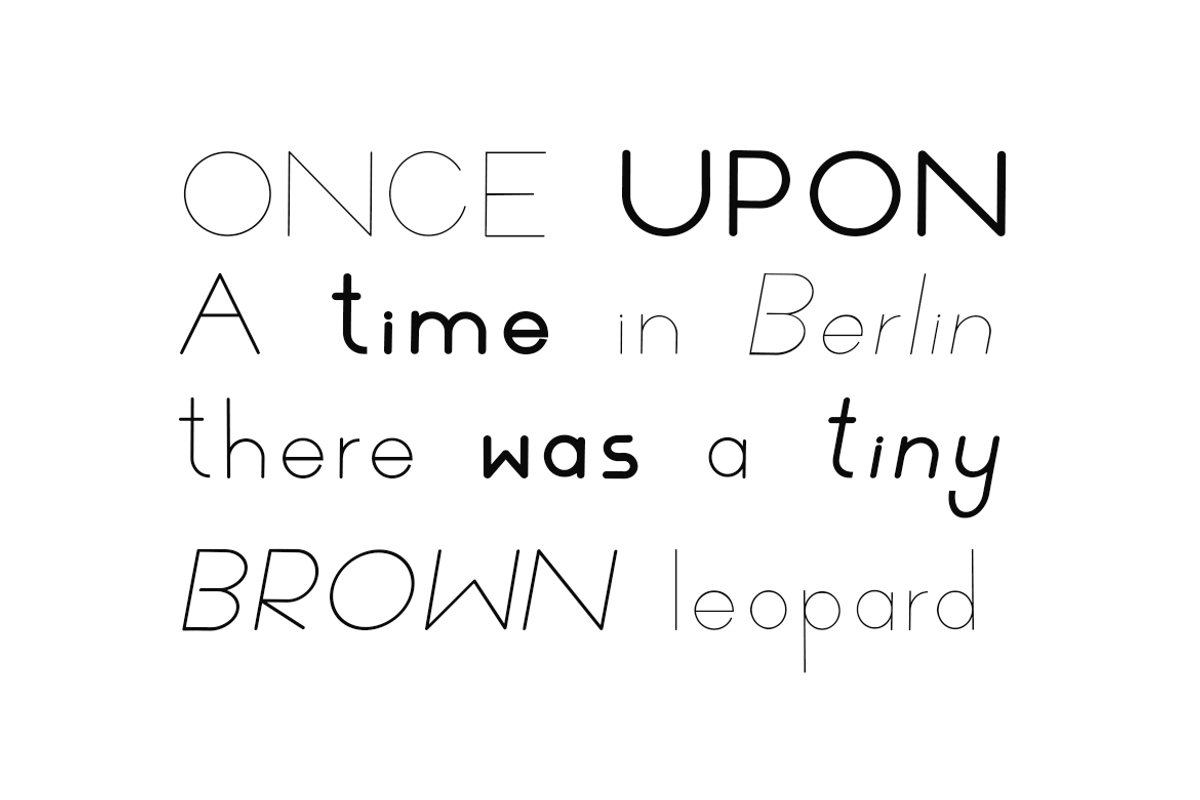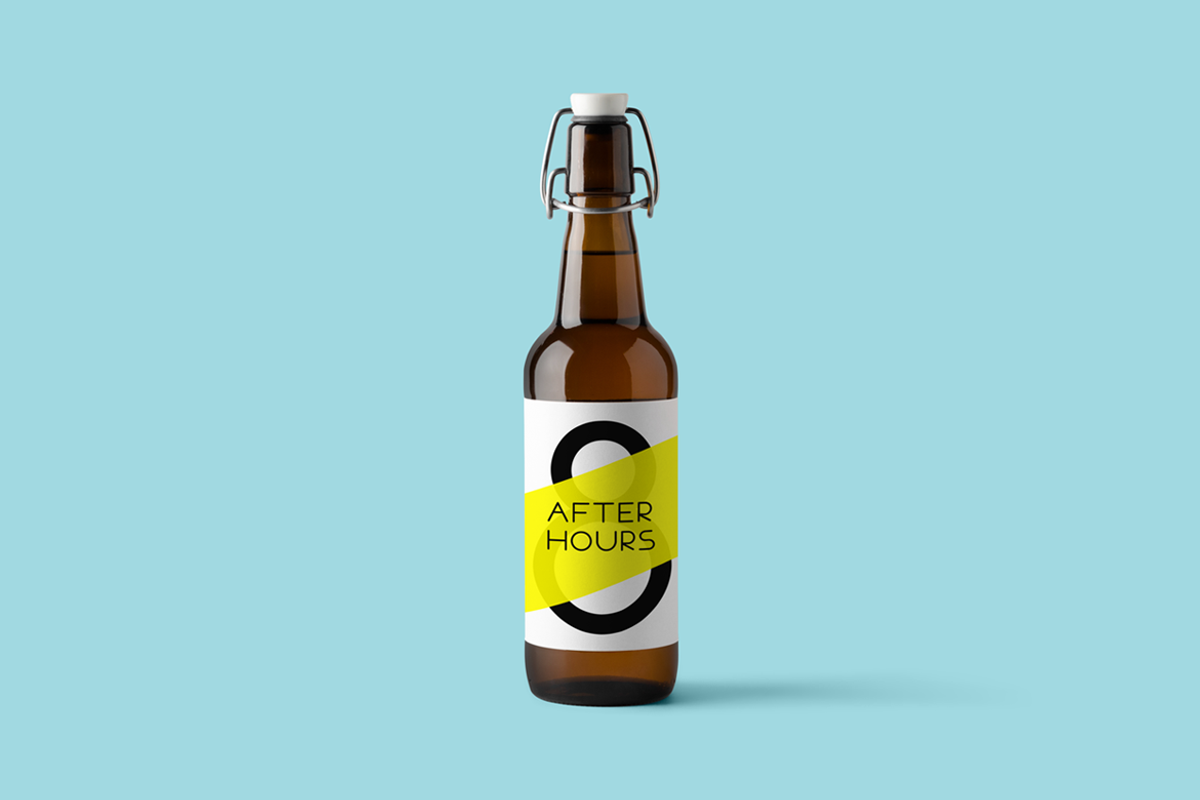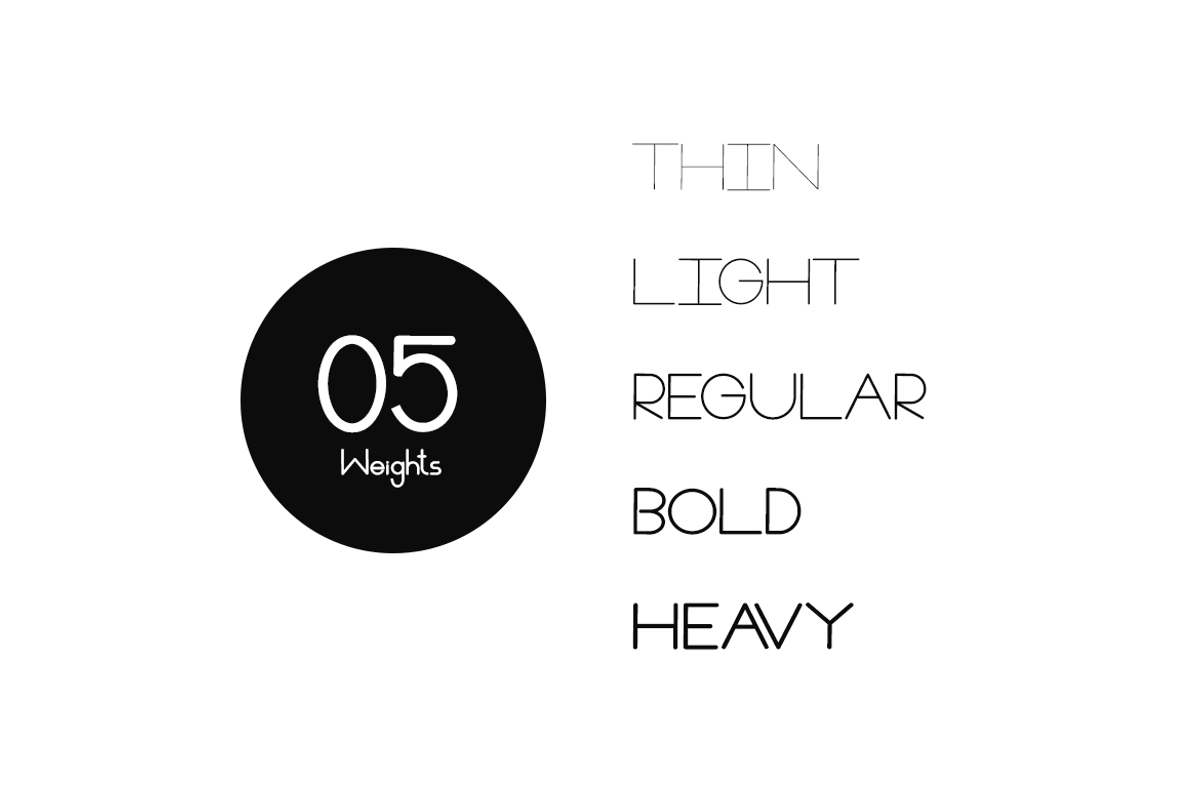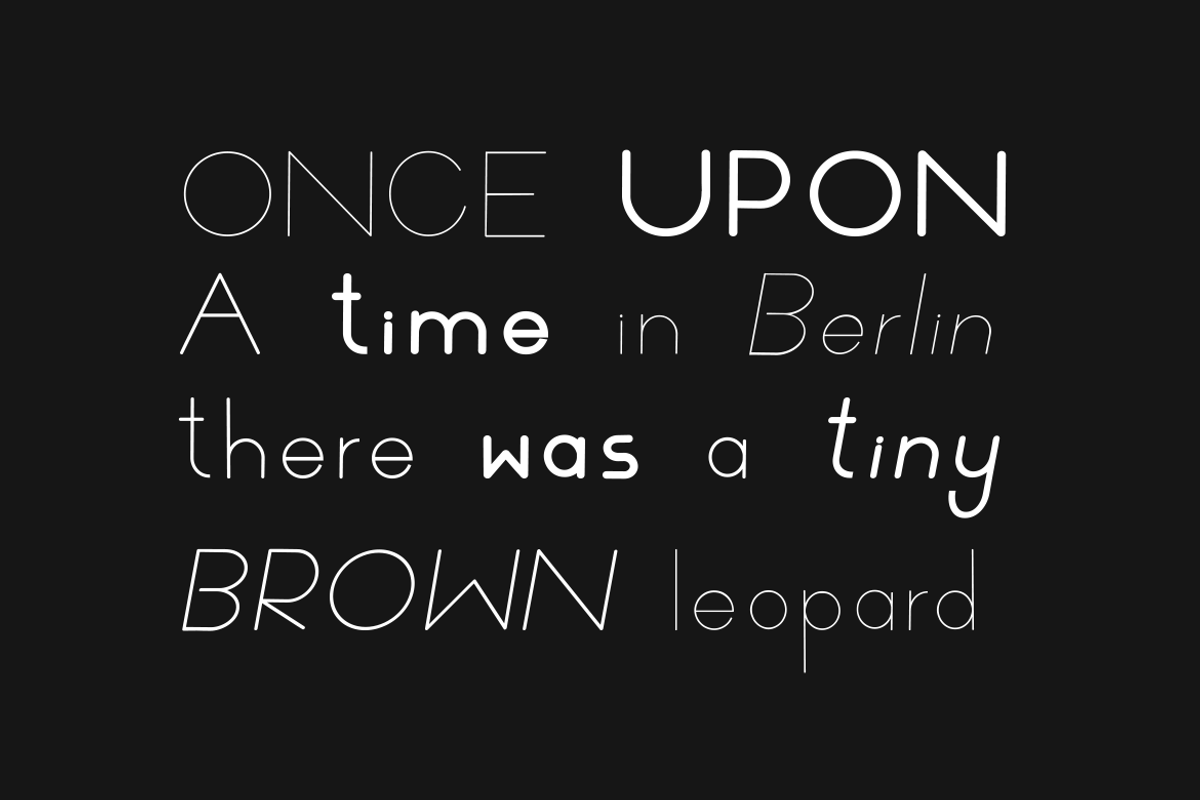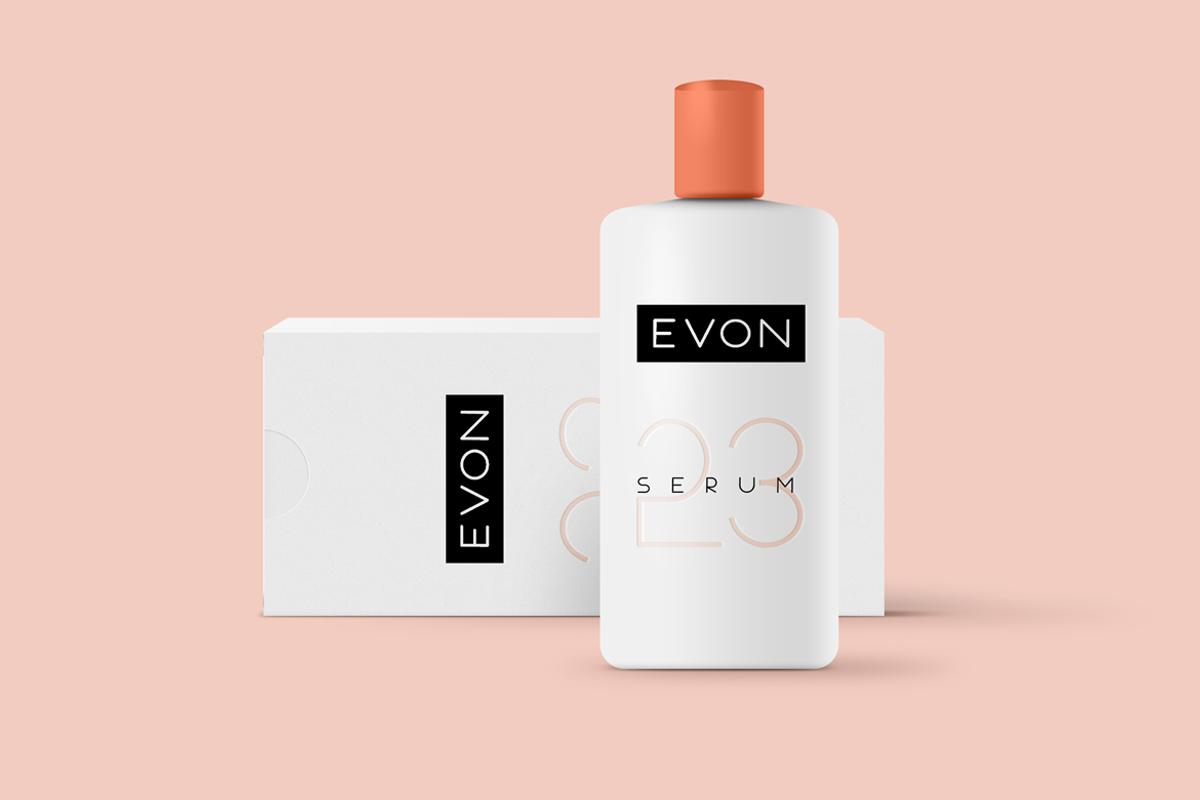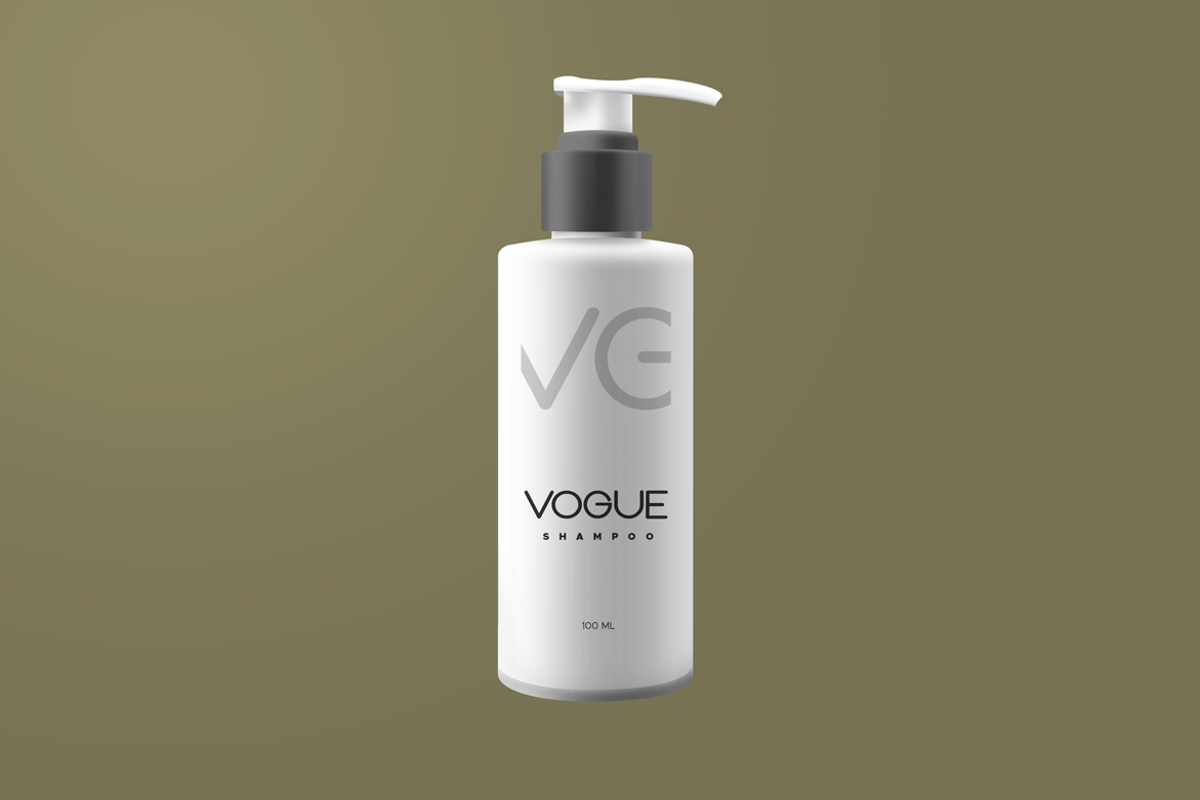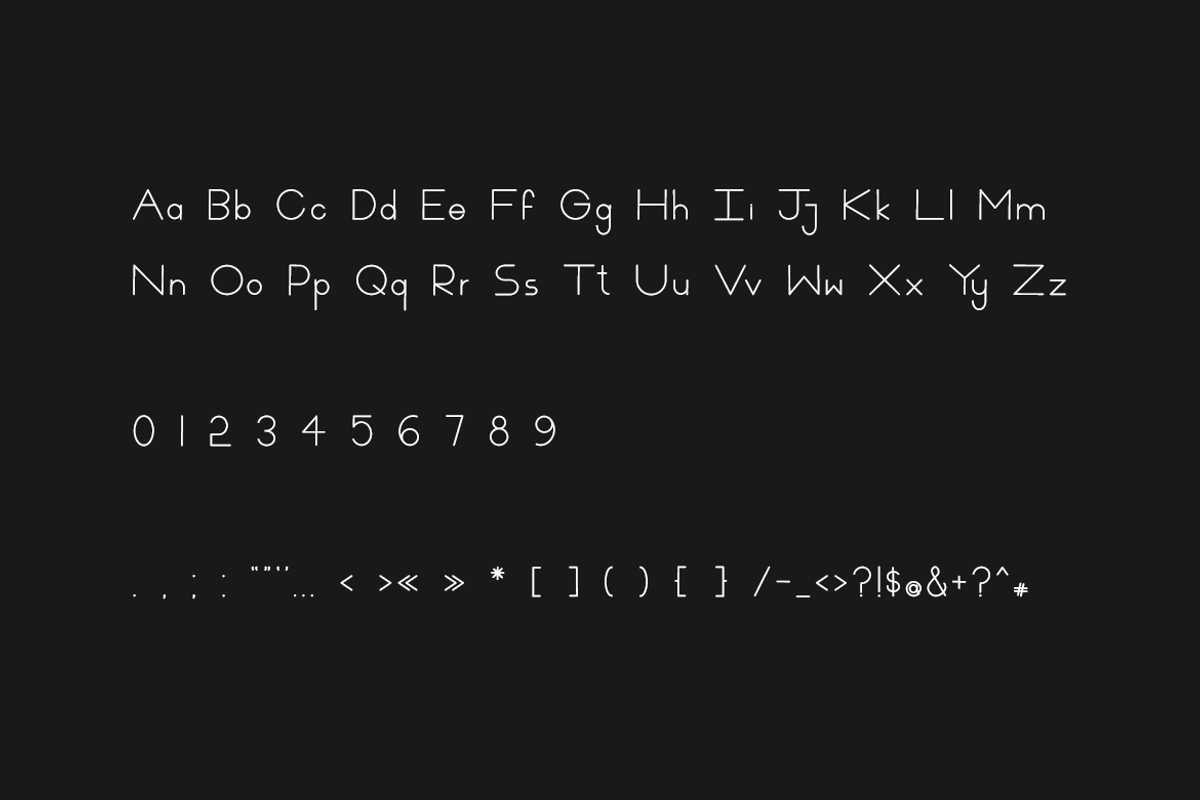
VECTOR - Minimal & Modern Typeface
VECTOR is a minimal & modern Sans Serif / Display typeface that stands out from crowd. VECTOR will be best suited for creating logotypes, branding, headlines, corporate identities, marketing materials for web & print as well as any type of minimal designs. Please see the included demo graphics to get an idea about the capability of this typeface when used for branding and marketing material design.
VECTOR typeface comes with 5 weights: LIGHT / THIN / NORMAL / BOLD / HEAVY. The pack includes complete OTF, TTF and Web Fonts (all EOT, SVG, TTF, WOFF, WOFF2 everything is included).